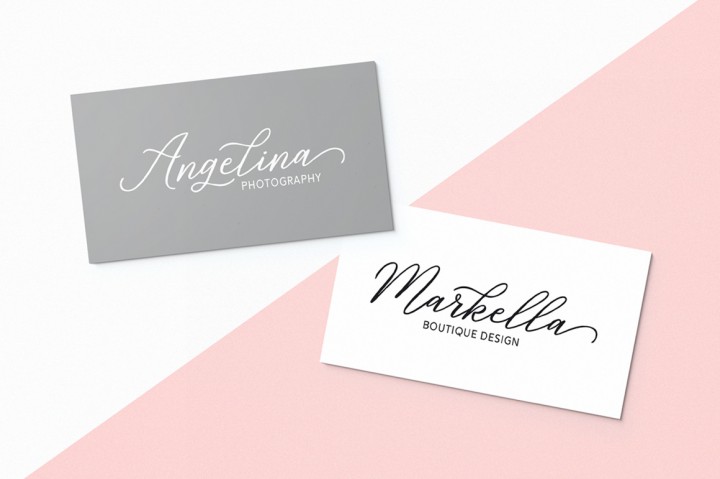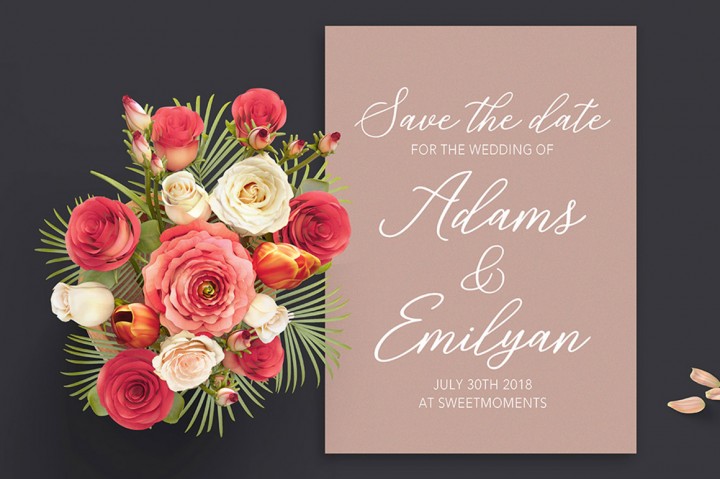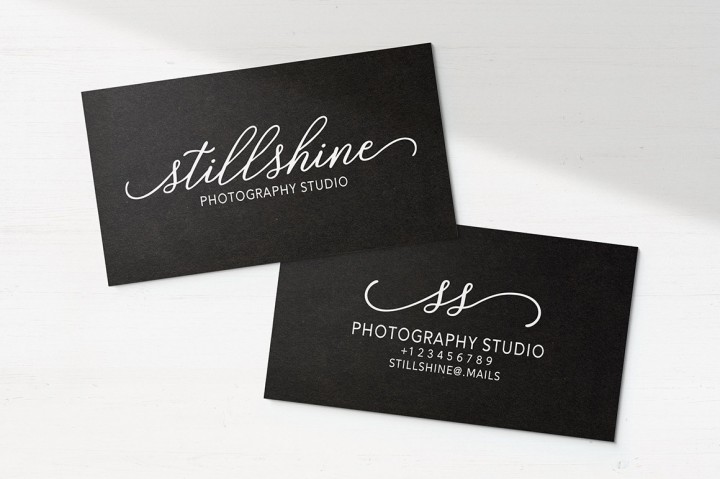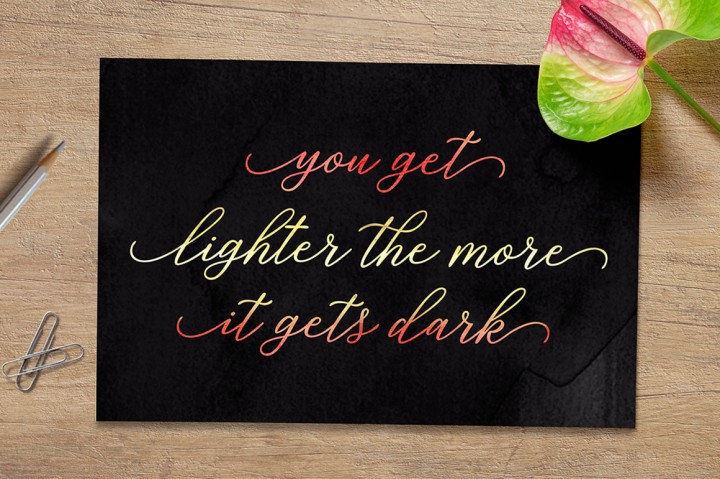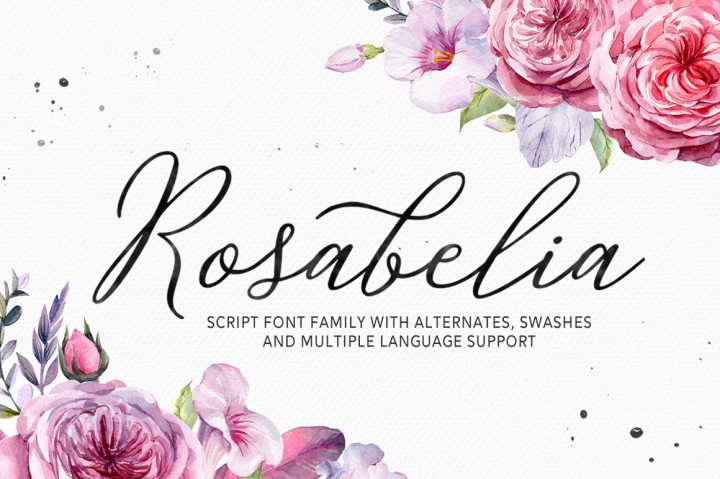
Rosabelia Script Font
Introducing the new ‘Rosabelia’ modern script font. It is was designed and shares by Solidtype. A new modern script font family, with elegant touch, casual and lovely. It comes with a handy set of opentype stylistic, use the beautiful ligatures, alternates and swashes. It is perfect for logo, greetings, branding, quotes, prints, invitations and crafting. All lowercase letters include alternates, beginning & end swashes, that makes the font look fabulous!